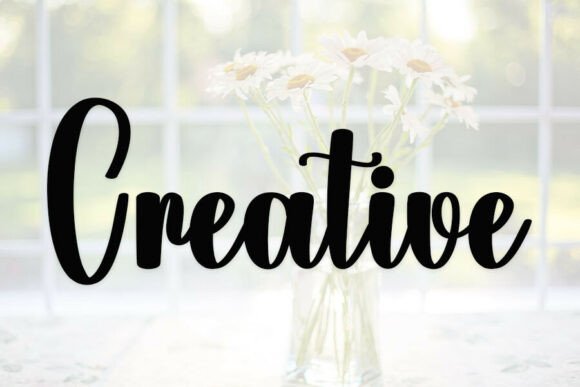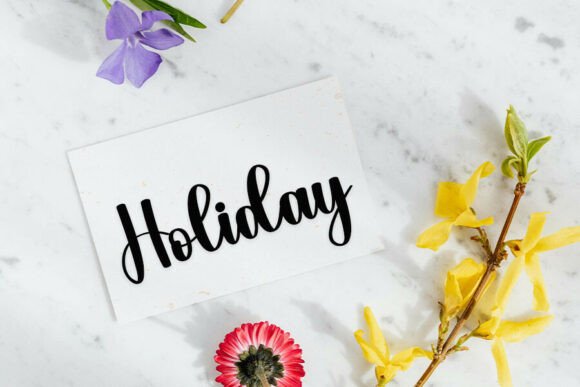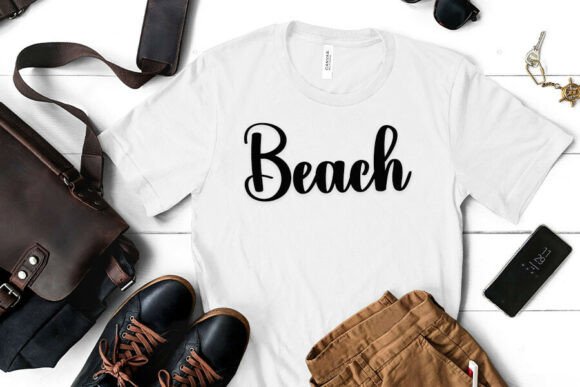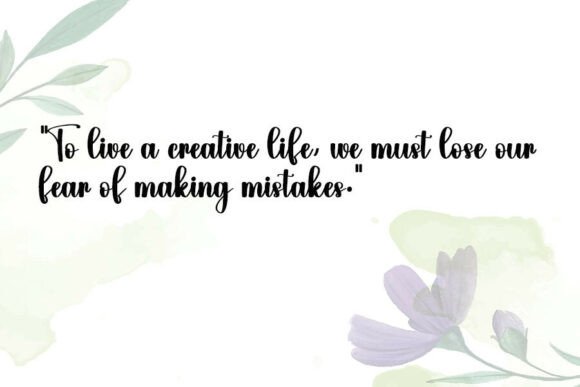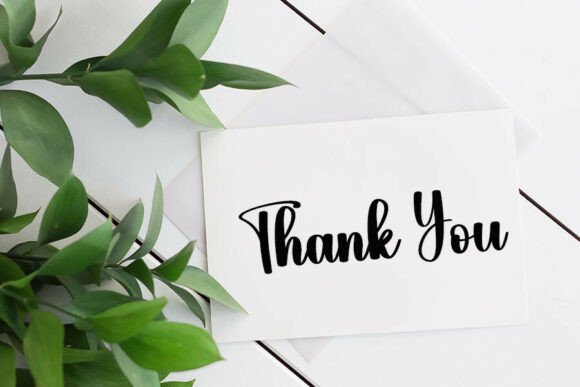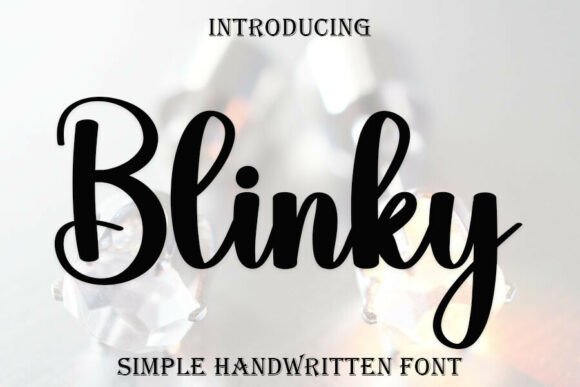
The Sweet Charm of Blinky Font: A Designer’s Delight
I’ll never forget the time I was working on a wedding invitation project, and my client asked for a font that was ” elegant, yet playful; romantic, yet not too over-the-top.” I scoured the internet, tried out dozens of fonts, but nothing seemed quite right. That was until I stumbled upon Blinky Font. ✨ This sweet and cursive handwritten font has been a game-changer for me, and I’m excited to share its charm with you.
An Honest Review of Blinky Font
• ✨ Sweet and Cursive: Blinky Font has a beautiful, flowing script that’s perfect for adding a touch of elegance to any design.
• ✅ Versatile: This font works beautifully on a variety of design ideas, from branding and logos to wedding invitations and greeting cards.
• 💕 Emotional Connection: Blinky Font has a way of evoking feelings of joy and romance, making it perfect for projects that require a personal touch.
• 👍 Easy to Read: Despite its cursive nature, Blinky Font is surprisingly easy to read, even at smaller sizes.
While Blinky Font is an excellent choice for many projects, there are a few things to keep in mind: 🤔
• ⚠️ Limited Use in Body Text: While Blinky Font is beautiful, it’s not the best choice for long blocks of body text. It’s better suited for headings, titles, and short paragraphs.
• ⚠️ Kerning Issues: As with any font, there may be some kerning issues, especially when using certain character combinations.
The Story Behind Blinky Font
Blinky Font was designed by a talented type designer who wanted to create a font that was both elegant and playful. Inspired by traditional handwriting, Blinky Font features beautiful, flowing connections and a sweet, charming personality.
Font Name Blinky Font
Author putrasyahreza00
Q: Is Blinky Font suitable for body text?
While Blinky Font is beautiful, it’s not the best choice for long blocks of body text. It’s better suited for headings, titles, and short paragraphs.